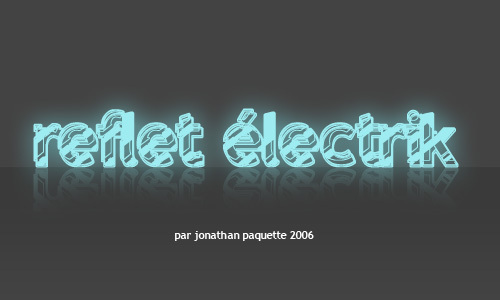
reflet électrik
Reflet électrik font by Jonathan Paquette is a free decorative display typeface that looks like chrome letters caught in strobe lights. Each character stacks thick, glossy contours and inky shadows into a tangled, almost holographic texture that feels both retro and sci‑fi. The rhythm of the repeating strokes pulls the eye along like a spinning marquee, so even a single word reads like a logo.
Using Reflet électrik, you can push headline work for rave posters, club flyers, music festival branding, sci‑fi book covers, experimental zines, and bold social graphics. This free font shines at oversized scales where its layered reflections can breathe, while short supporting text can sit in a clean geometric sans for contrast.